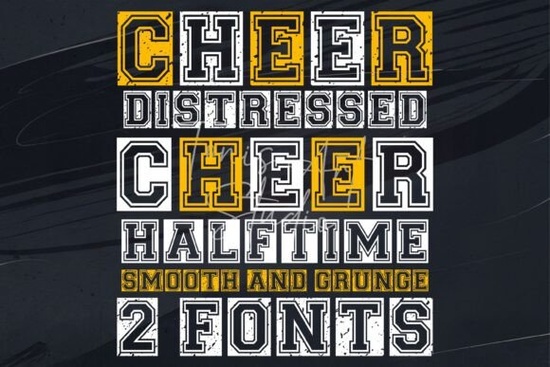
If you're creating designs for cheer squads, high school sports teams, or game day apparel, having the right typography can make all the difference. The Cheer Font bundle officially called Cheer Distressed & Cheer Halftime Font delivers two complementary varsity styles that bring energy and authenticity to any athletic-themed project. One version offers a rough, grunge-inspired texture perfect for rugged team spirit graphics, while the other provides a smooth, clean look ideal for classic varsity aesthetics.
What makes this font bundle stand out for sports and cheer designs?
Unlike generic display fonts, the Cheer Font was built specifically with athletic branding in mind. The distressed variant adds visual grit think worn-out jerseys, weathered gym walls, or battle-tested team pride. Meanwhile, the smooth halftime version keeps things sharp and legible, great for player names on jerseys or bold headlines on pep rally posters.
You’ll find it particularly handy when you need stacked lettering (common in varsity logos) or want to layer text over busy backgrounds without losing readability. Both fonts support standard Latin characters and include uppercase letters, numbers, and basic punctuation enough for most short-form applications like slogans, team names, and event titles.
Who should use the Cheer Font?
- Crafters making custom tumblers, hoodies, or banners for local schools
- Print-on-demand sellers building seasonal collections around football season or homecoming
- Graphic designers working on social media assets for athletic departments
- Small business owners offering spirit wear or event merchandise
- Hobbyists creating personal projects for their kids’ teams or community leagues
If your work involves recurring themes like team pride, competition, or school spirit, this bundle saves time by offering two ready-to-use styles in one download. And because it’s optimized for popular platforms like Canva and Cricut Design Space, you can jump straight into designing without wrestling with file formats.
How does it compare to other display fonts?
While there are plenty of sporty fonts out there, not all capture the authentic feel of real varsity lettering. For example, the Fox Chubby font leans more playful and rounded great for casual or youth-focused designs but less suited for intense athletic branding. Similarly, something like the Witch Halloween font serves a completely different niche with its spooky, decorative flair.
The Cheer Font fills a specific gap: bold, readable, and thematically consistent with American high school and college sports culture. If you’ve ever struggled to find a font that feels “right” for a football helmet decal or a cheerleader warm-up jacket, this bundle addresses that need directly.
Tips for getting the most out of this font bundle
- Pair wisely: Use the distressed version for backgrounds or accent text, and the smooth version for primary messaging to maintain clarity.
- Scale with care: These fonts shine at larger sizes ideal for posters, apparel, and banners but may lose detail if used too small.
- Combine with team colors: Varsity red, navy, gold, or black instantly reinforce the athletic vibe.
And if you’re exploring similar options, don’t miss the dedicated page for this product: Cheer Font, where you can see mockups and user examples.